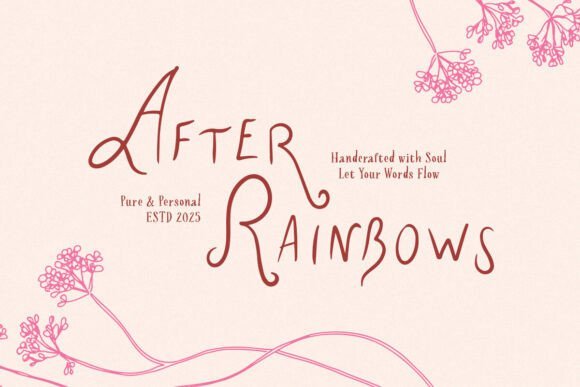
Where Inspiration Meets Whimsy: The Allure of After Rainbows Font
There’s something special about those lazy afternoons spent watching raindrops slide down the windowpane, the world outside muted and serene. It’s a moment when creativity stirs, and imagination knows no bounds. For designers, this feeling is often the spark that sets their next project ablaze. And that’s exactly what the After Rainbows Font is all about – capturing the essence of those dreamy days and gentle rains in a beautiful, handwritten script.
This charming font is perfect for adding a touch of warmth and personality to your designs. With its playful curves and delicate strokes, it’s an ideal choice for feminine branding, wedding invitations, social media quotes, and anything that needs a dash of sweetness. Whether you’re a seasoned designer or just starting out, the After Rainbows Font is a valuable addition to your toolkit, allowing you to infuse your work with love, magic, and a hint of whimsy.
After Rainbows Font Key Features
• Font Family: After Rainbows Font is a unique, handwritten font designed to evoke a sense of whimsy and wonder.
• Font Size: The font is available in 4 different sizes, ranging from 10pt to 72pt, to accommodate various design requirements.
• Resolution: Optimized for high-resolution displays, the font is suitable for use in digital designs, such as website headers, social media graphics, and mobile apps.
• Unique Characteristics: After Rainbows Font features a distinctive, hand-painted look with intricate details and subtle imperfections, adding a touch of personality to any design.
• Character Count: The font contains over 700 glyphs, including Latin, Cyrillic, and Greek characters, making it a versatile choice for multilingual designs.
Designer Review: After Rainbows Font
After taking some time to explore the After Rainbows Font, I have to say it’s a visually stunning typeface. ✨ The elegant curves and playful flair make it perfect for adding a touch of whimsy to your designs. The font is highly versatile and works well for a variety of projects, from branding and marketing materials to editorial content and even web design. ✨ The font’s modern feel is balanced by its friendly and approachable nature, making it a great choice for projects that require a sense of approachability.
However, there are some limitations to consider. ⚠️ The font’s irregularities, while visually appealing, can make it difficult to read at smaller font sizes. Additionally, the font’s uniqueness can sometimes feel overwhelming, and it may not be the best choice for projects that require a more subtle or neutral tone. ⚠️
Overall, I think the After Rainbows Font is a fantastic choice for designers looking to add a touch of personality to their projects. While it may not be suitable for every project, it’s definitely worth considering for those that require a playful and modern feel.
• Visually stunning and highly versatile
• Elegant curves and playful flair
• Perfect for branding, marketing, and editorial content
• Modern feel with a friendly and approachable tone
• May be difficult to read at smaller font sizes
• Unique feel may be overwhelming for some projects
After Rainbows Font: A Practical Application Guide
The After Rainbows Font is ideal for creating whimsical and playful designs. It’s perfect for:
• Children’s party invitations and decorations
• Food and drink labels
• Stationery and greeting cards
Remember to experiment with different font sizes, colors, and styles to get the most out of this unique font.